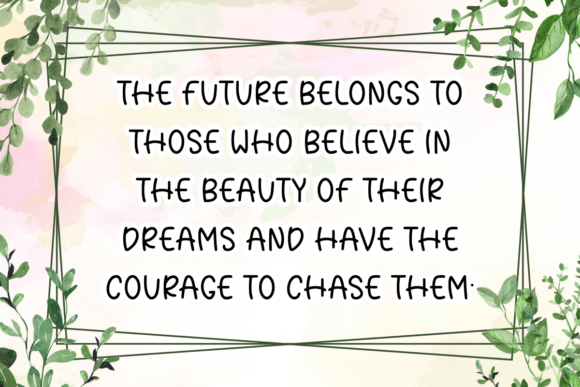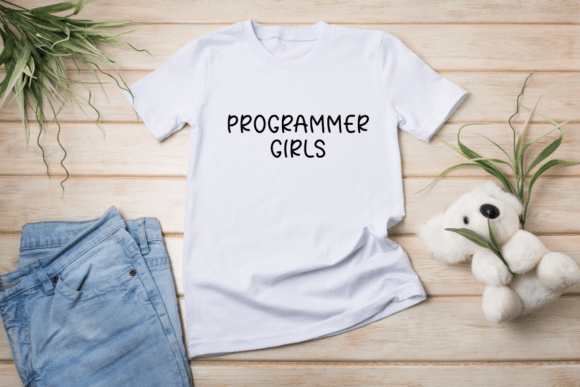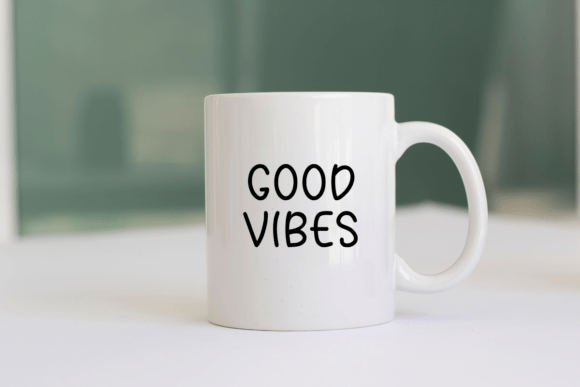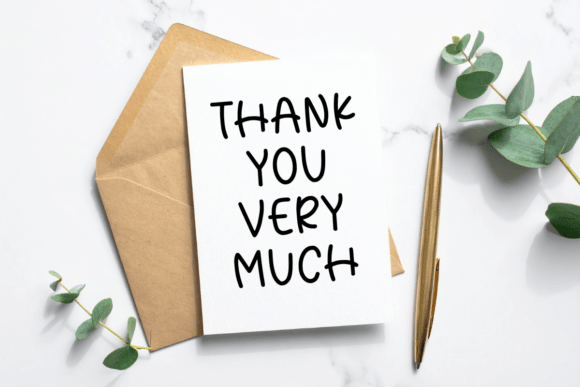
Discover the Sweet Charm of Clover Font
Have you ever stumbled upon a beautiful handwritten note or a charming journal entry that made you feel all warm and fuzzy inside? For many of us, there’s something special about the imperfections and uniqueness of natural handwriting that makes it truly special. That’s exactly what inspired the creation of Clover Font, a simple and cute handwritten font that’s perfect for adding a personal touch to your creative projects.
Clover Font is designed to evoke the feeling of handwritten love notes, journal entries, and childhood memories. With its rounded and friendly look, this font is ideal for a wide range of applications, from planners and sticky notes to birthday designs and greeting cards. Whether you’re a seasoned designer or a crafty DIY enthusiast, Clover Font is a valuable addition to your creative toolkit.
Clover Font Key Features
- Unique Characteristics: Clover Font features a unique blend of modern and vintage elements, making it perfect for designs that require a touch of sophistication and elegance.
Clover Font Review
I recently had the chance to work with the Clover Font, and I must say it’s a charming addition to any design project. Here are some of its standout features ✨:
- Unique Character**: The Clover Font has a distinct personality that sets it apart from more generic fonts. It’s perfect for projects that require a touch of whimsy and personality.
- High Legibility**: Despite its playful nature, the font is remarkably legible, making it suitable for a wide range of applications.
- Customization Options**: Clover Font offers a range of customization options, including various weights and styles, which can be tailored to suit your design needs.
However, I did encounter some limitations ⚠️:
Overall, I’m impressed with the Clover Font’s unique character and versatility. While it may have some limitations, it’s a solid choice for designers looking to add some personality to their projects.
The Clover Font is ideal for creating playful and whimsical designs. Some common use cases include:
- Children’s book illustrations.
Alternatives to Clover Font
Oswald is a sans-serif font designed by Vernon Adams. It’s a great alternative to Clover Font for titles and headings, as it has a similar modern feel. Oswald is more geometric and has a bolder appearance, making it suitable for use in headings and titles where you want to draw attention.
Comparison to Clover Font: Oswald has a bolder and more geometric appearance, while Clover Font is more rounded and friendly. Oswald is better suited for titles and headings, while Clover Font is better for body text.
Lato is a sans-serif font designed by Łukasz Dziedzic. It’s a great alternative to Clover Font for body text, as it has a similar friendly and approachable feel. Lato is more rounded and has a softer appearance, making it suitable for use in body text where you want to create a welcoming atmosphere.